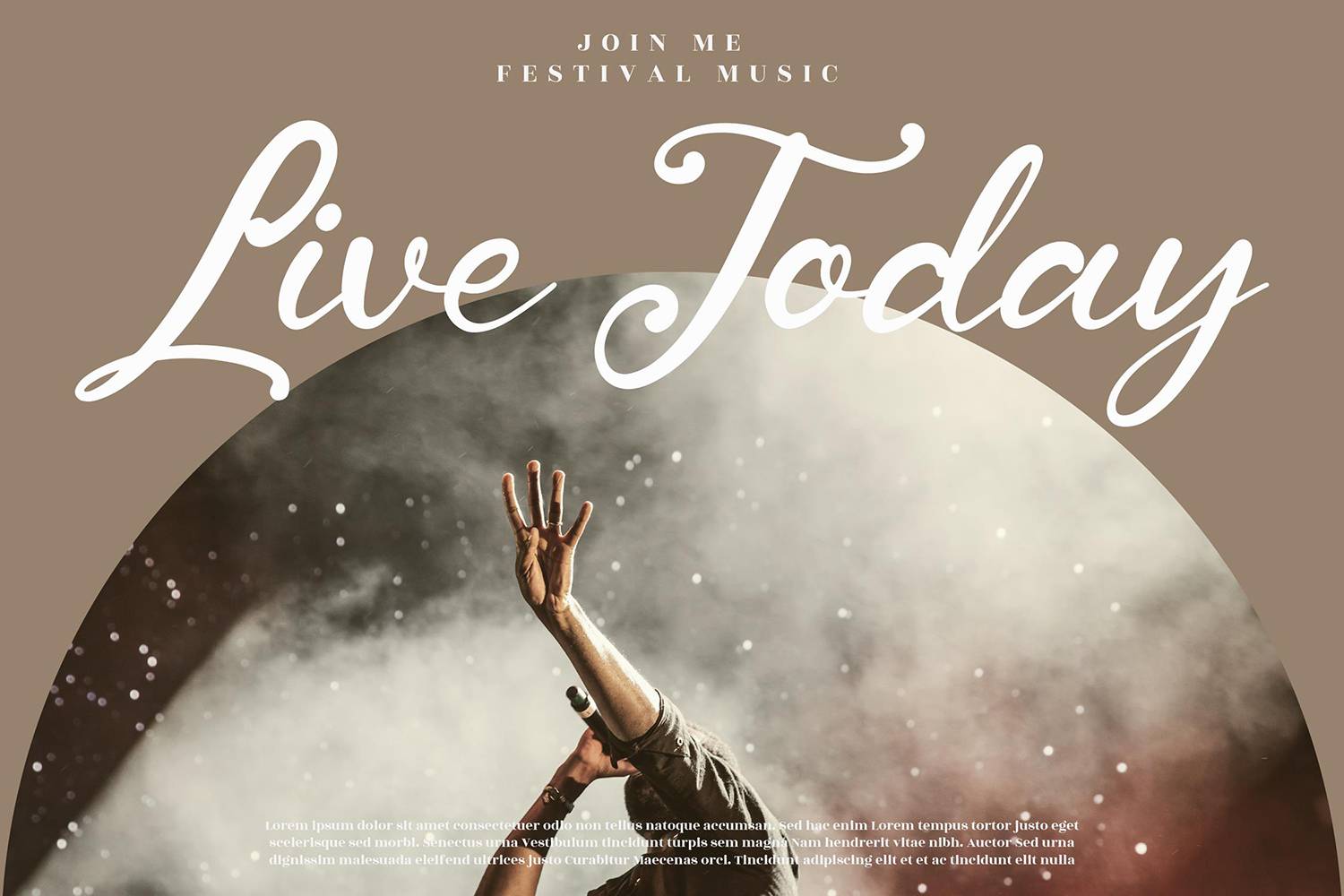
Cantika Sarah is an elegant script font with a smooth, flowing style that feels personal and refined. Its light to regular weight and moderately tall x-height give it a graceful, airy appearance, making it ideal for invitations, branding, and packaging that require a sophisticated, handwritten touch. This font’s classic cursive forms and well-balanced spacing convey warmth and charm, perfect for fashion, beauty, or lifestyle projects seeking a stylish yet approachable look.
Cantika Sarah Font